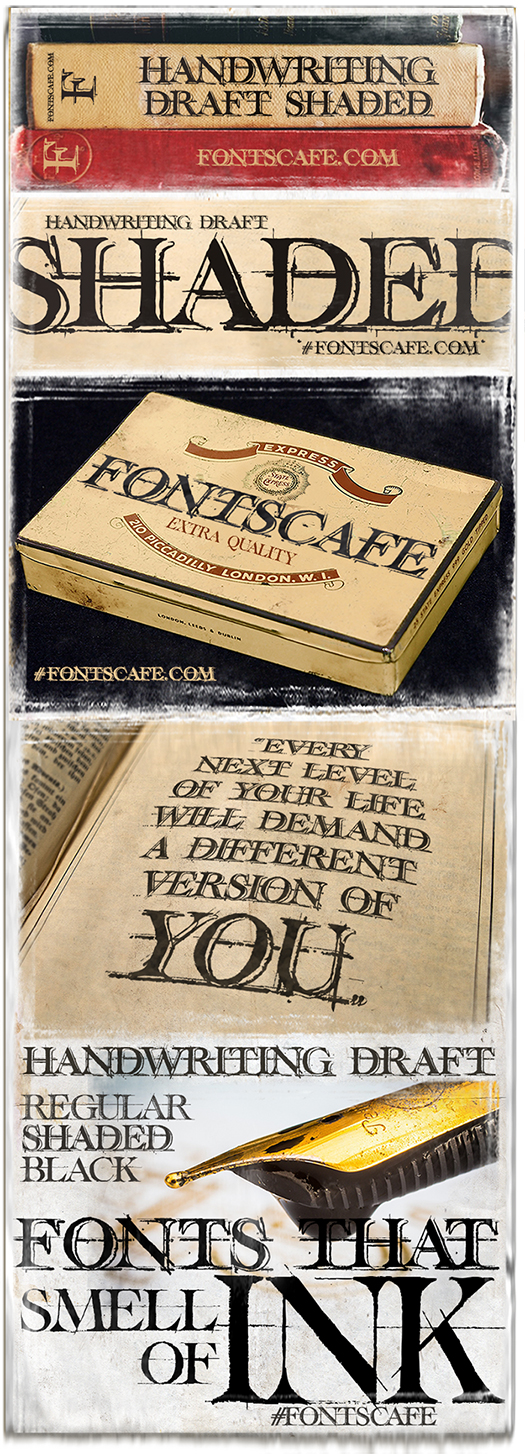
Categories | Fancy, Grid |
free for PERSONAL USE ONLY! Our new "Handwriting Draft Shaded" font (http://fontscafe.com/font/handwriting-draft-shaded-font) is the new brother of our very first "Handwriting Draft" font (http://fontscafe.com/font/handwriting-draft-font). It has a very "bold character" thanks to its very unique shadows, outlines, roughness and distressed elements! If you want to take a look to the whole "Handwriting Draft pack", with also the "sister" included....here the link! :) http://fontscafe.com/font/handwriting-draft-3-pack FOLLOW US and get a free font: FACEBOOK: http://www.facebook.com/pages/Fontscafecom/284319378306355 PINTEREST: https://www.pinterest.com/fontscafe/ More fonts on DaFont: http://www.dafont.com/fontscafe-com.d3347 |